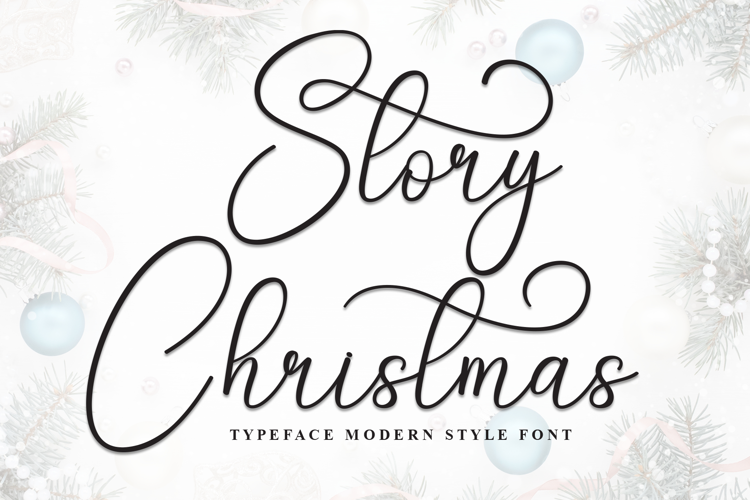
Stories Christmas
Introducing, this is our newest product, we call this product Stories Christmas,
It looks amazing with sweet touches and beautiful curves in each letter. Stories Christmas fonts are perfect for: wedding invitations, fashion magazines, logos, signatures, photography, watermarks, wall displays, social media,